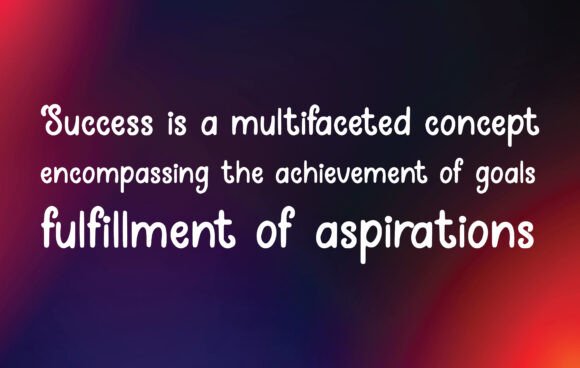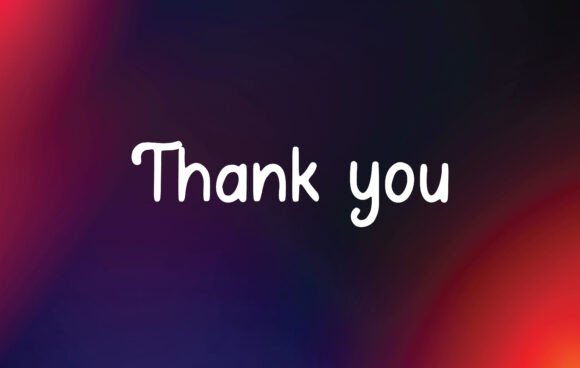
Introducing Amethyst Font: Elevate Your Creative Projects with Elegance
Are you a designer, craft, or DIY enthusiast looking for a font that can add a touch of sophistication and elegance to your creative projects? Look no further than Amethyst Font, a lovely and beautiful handwritten font that has the potential to take your ideas to the highest level.
What Makes Amethyst Font Special?
Amethyst Font is a unique and versatile font that is perfect for creating eye-catching logos, branding, and quotes. Its elegant and cursive design makes it ideal for a wide range of creative projects, from stationery and invitations to social media graphics and website headers.
Key Features of Amethyst Font
• Handwritten Elegance: Amethyst Font boasts a beautiful, handwritten design that adds a personal touch to any project.
• Versatility: This font is perfect for a wide range of creative projects, from logos and branding to quotes and social media graphics.
• Ease of Use: Amethyst Font is easy to read and works well in both digital and print formats.
• Customizable: With its clear and elegant design, Amethyst Font can be easily customized to fit your brand’s unique style.
Why Choose Amethyst Font?
Amethyst Font is the best choice for designers and crafters who want to add a touch of elegance and sophistication to their creative projects. Here are just a few reasons why:
• Stand Out from the Crowd: With its unique and elegant design, Amethyst Font can help your project stand out from the crowd and grab attention.
• Professional Look and Feel: This font gives your project a professional look and feel, making it perfect for businesses and brands.
• Easy to Pair with Other Fonts: Amethyst Font pairs well with a wide range of other fonts, making it easy to create a cohesive and visually appealing design.
How to Use Amethyst Font in Your Creative Projects
Using Amethyst Font in your creative projects is easy. Here are a few tips to get you started:
• Logos and Branding: Use Amethyst Font to create a unique and memorable logo or branding element that reflects your brand’s personality.
• Quotes and Social Media Graphics: Add a touch of elegance and sophistication to your quotes and social media graphics with Amethyst Font.
• Stationery and Invitations: Use Amethyst Font to create beautiful and elegant stationery and invitations that will make a lasting impression.
Tips and Tricks for Getting the Most Out of Amethyst Font
Here are a few tips and tricks for getting the most out of Amethyst Font:
• Experiment with Different Sizes and Colors: Don’t be afraid to experiment with different sizes and colors to find the perfect combination for your project.
• Pair with Other Fonts: Try pairing Amethyst Font with other fonts to create a unique and visually appealing design.
• Use in Combination with Images: Use Amethyst Font in combination with images to add an extra layer of depth and interest to your design.
In conclusion, Amethyst Font is a beautiful and elegant handwritten font that has the potential to take your creative projects to the highest level. With its versatility, ease of use, and customizable design, it’s the perfect choice for designers, crafters, and DIY enthusiasts. Whether you’re looking to create eye-catching logos, branding, and quotes, or simply want to add a touch of elegance and sophistication to your creative projects, Amethyst Font is the perfect choice.